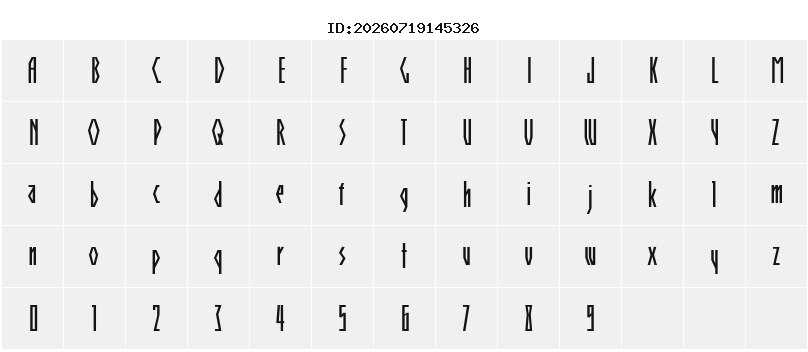
• Font Name: Clear
• Full Font Name: Clear
About Clear.ttf
Clear.ttf is a modern, elegant sans-serif font designed for ultimate readability and visual harmony. Perfect for branding, headlines, web design, and print materials.